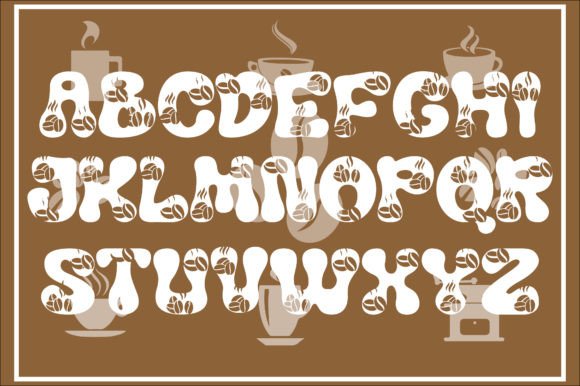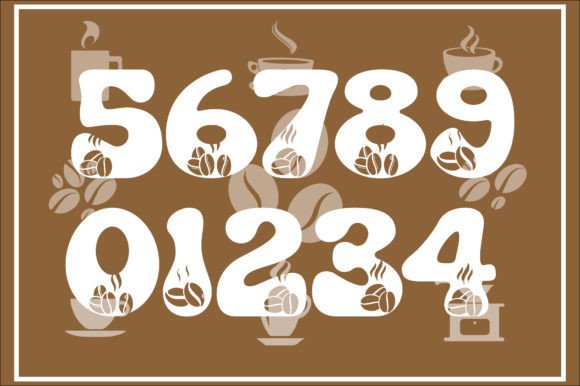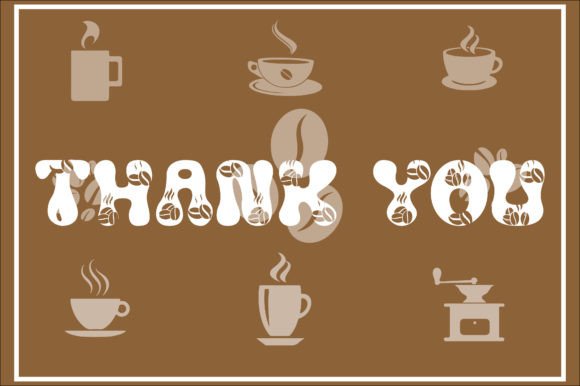
Introduction to Groovy Coffee Font
Groovy Coffee is a thick-lettered and fun-looking decorative font.
It is perfect for restaurant menus, diner boards, food packaging, or anything that needs to look delicious .
Key Features of Groovy Coffee Font
Why Choose Groovy Coffee Font?